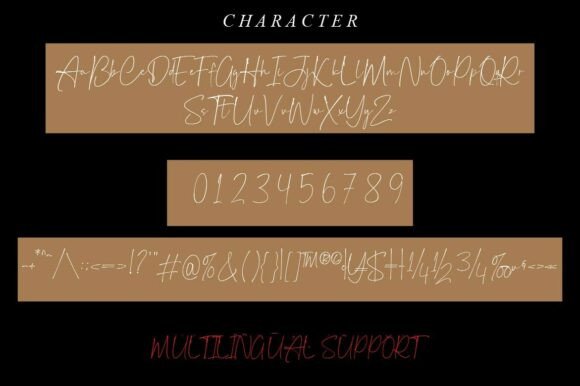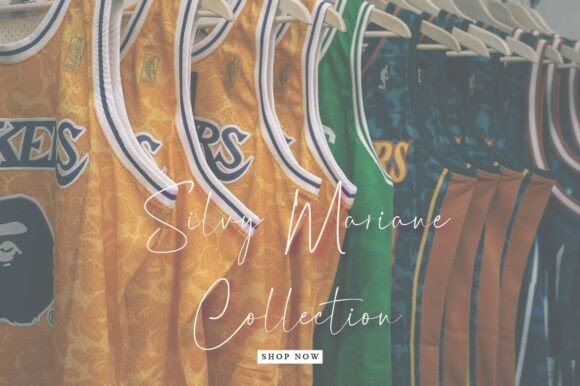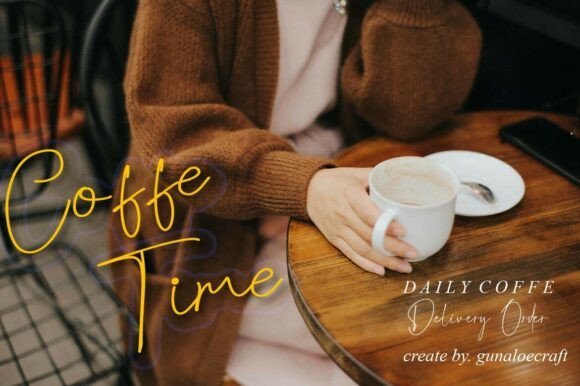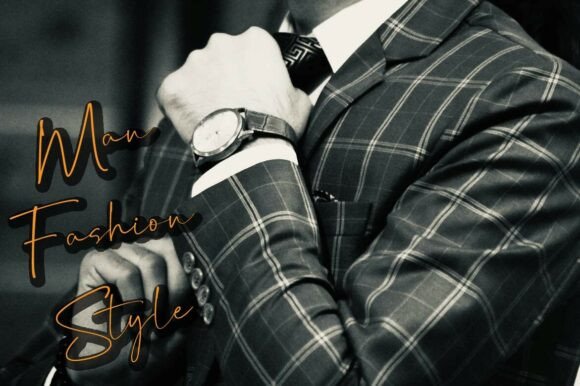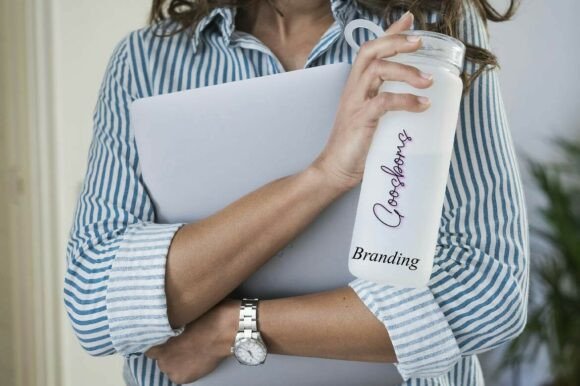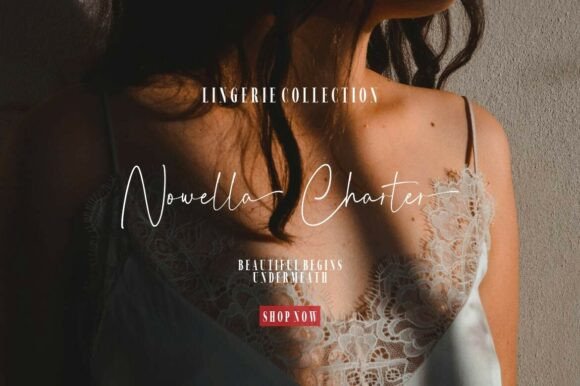
Introduction to Goosebumps Font
Introducing Goosebumps, a skillfully crafted monoline script font reminiscent of refined, high-end handwriting.
Its exquisitely formed curves mimic the allure of a real signature, making Goosboms a versatile choice for myriad applications – from high-end fashion layouts to emotive photography portfolios This outstanding font seamlessly blends style with communication, offering a refined charm that elevates any project it adorns.
Key Features of Goosebumps Font